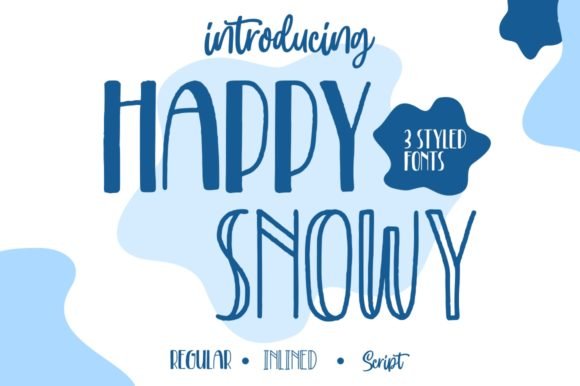
Unleash Your Creativity with the Joy of Handwritten Fonts
Do you remember the excitement of discovering a new font that perfectly captures the essence of your design? Maybe it was a client project, a personal branding venture, or simply a fun creative experiment. Whatever the case, you know the thrill of stumbling upon that one special font that makes your design pop.
For designers seeking that perfect handwritten touch, Happy Snowy Font is here to bring a smile to your face and a spring to your creative step. This lovely, playful font is designed to add a touch of whimsy and charm to your designs, making it perfect for various projects, from children’s book illustrations to wedding invitations and more.
With Happy Snowy Font, you’ll have a versatile tool at your disposal to craft unique, eye-catching designs that leave a lasting impression. Its value lies in its ability to evoke emotions and create a sense of warmth, making it an invaluable addition to any designer’s toolkit.
Key Features of Happy Snowy Font
- Size: The font family includes multiple weights, ranging from Thin to Extra Bold, providing a range of options for designers to choose from.
- Unique Characteristics: This font features a unique, hand-drawn design with intricate details, giving it a whimsical and festive feel, perfect for winter-themed projects.
- Language Support: Happy Snowy Font supports a wide range of languages, including Latin, Cyrillic, and Greek alphabets, making it a versatile choice for international designs.
Happy Snowy Font Review
Overall, I think the Happy Snowy Font is a cute and playful choice for winter-themed designs. ✨ Here are some of its strengths:
- Fun and festive feel: The Happy Snowy Font is perfect for capturing the magic of the winter season.
- Customizable: This font can be easily customized to fit your design needs, from the size and color to the style and tone.
- High-quality glyphs: The font’s glyphs are well-designed and look great on screen, making it a great choice for digital projects.
- Limited versatility: The Happy Snowy Font is quite specific in its design, making it less versatile than other fonts for general use.
- Not ideal for formal designs: This font is best suited for casual, creative projects and may not be the best choice for formal or professional designs.
- Some characters may not render well: I’ve noticed that some characters in the font may not render well in certain contexts or at small sizes.
Overall, the Happy Snowy Font is a fun and creative choice for winter-themed designs. While it may not be the best choice for every project, it’s a great option for those looking for a playful and festive font.
Tips for Getting the Most Out of “Happy Snowy Font”
For the best results, use “Happy Snowy Font” for titles, headings, and other eye-catching elements. Combine it with a clean and simple design to make it stand out.
Experiment with different font sizes, colors, and styles to find the perfect look for your project.
“Happy Snowy Font” is perfect for:
- Winter-themed projects, such as holiday cards or social media graphics.
- Children’s books or educational materials.
- Any project
Alternatives to “Happy Snowy Font” for Designers
Great Vibes Font is a modern, handwritten font that is perfect for creating a whimsical and playful atmosphere. It is ideal for use in social media graphics, advertisements, and packaging design. Great Vibes Font is more cursive than Happy Snowy Font, giving it a softer and more elegant look.
Dancing Script Font is a elegant and sophisticated script font that is perfect for use in high-end branding, invitations, and luxury packaging. It is more formal than Happy Snowy Font and has a more refined look. Dancing Script Font is ideal for designers who want to create a sense of sophistication and elegance.